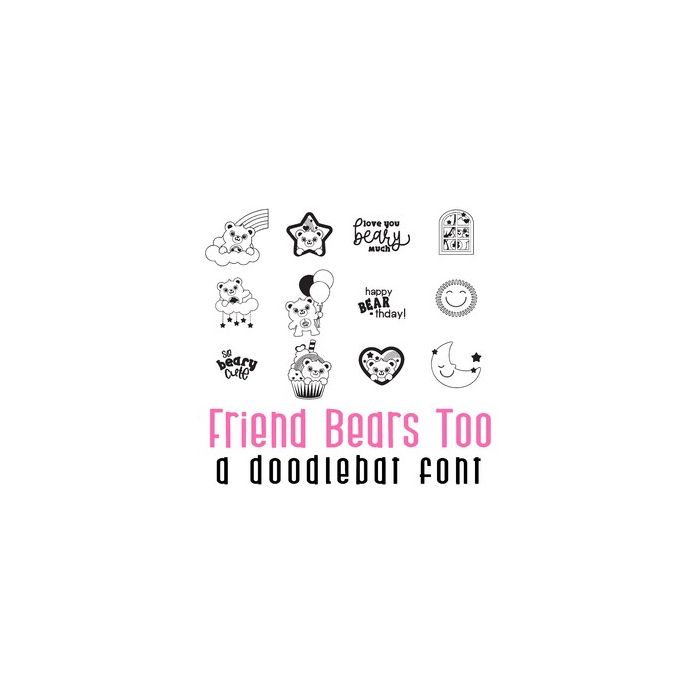
This adorable doodlebat font features 26 fun bears and happy images perfect for cards, crafts, gifts, parties, planner stickers, scrapbook pages, classrooms and more!